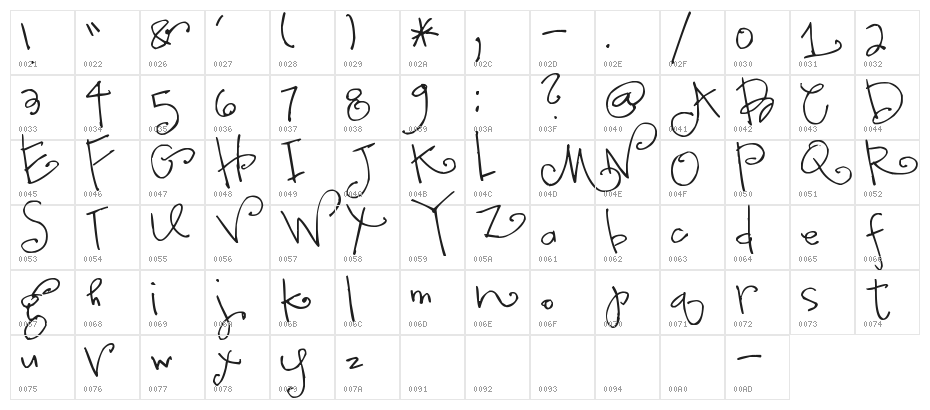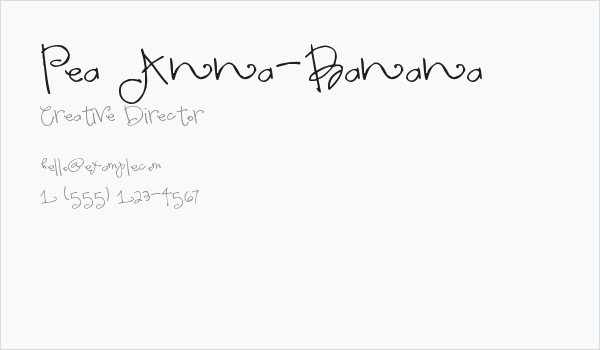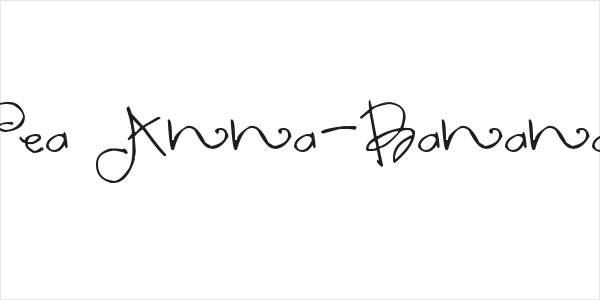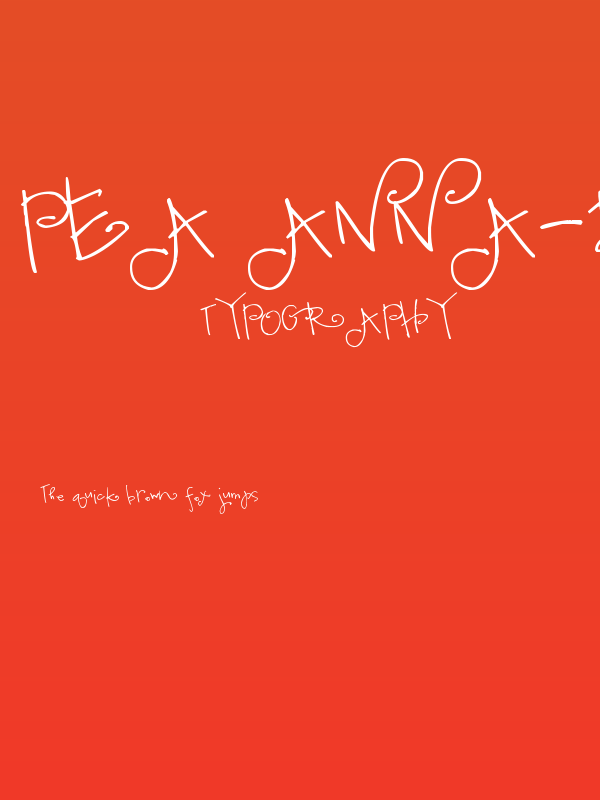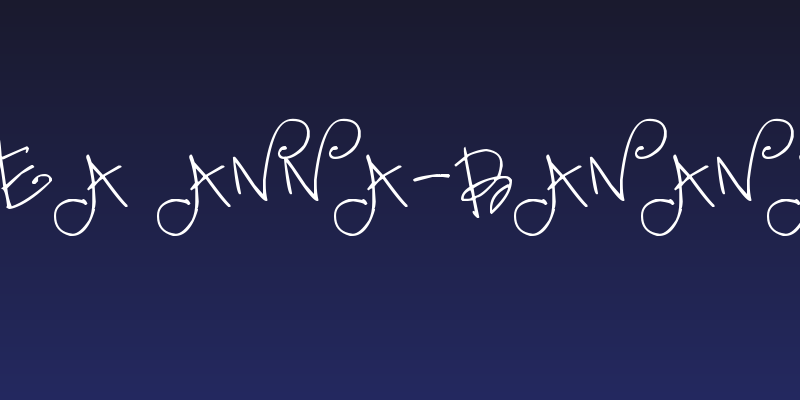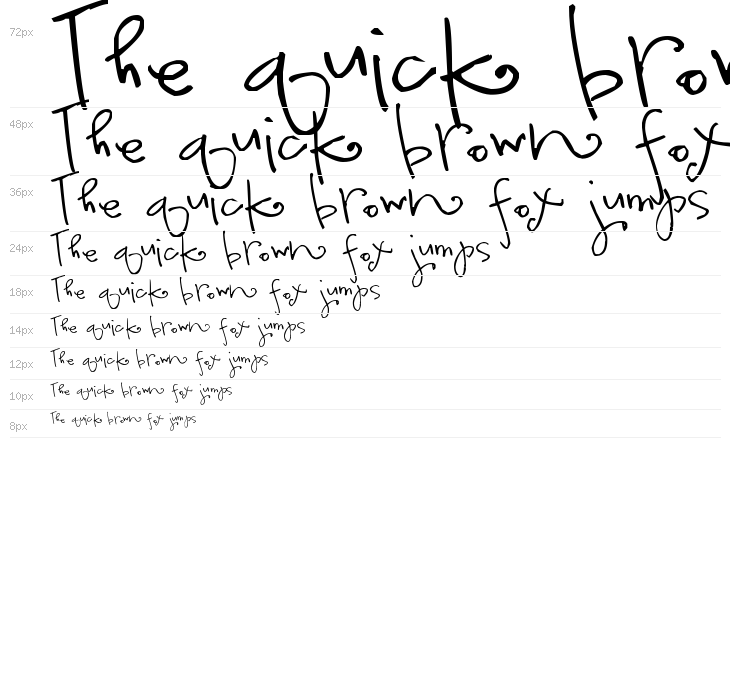
Pea Anna-Banana Font
Pea Anna-Banana Description
This playful and whimsical font features a handwritten style with a lively and energetic flair. The characters are characterized by their curly and looping strokes, giving them a sense of movement and personality. The uppercase letters are bold and expressive, while the lowercase letters maintain a consistent flow with a slightly more relaxed appearance. The numbers and special characters follow the same playful theme, making them suitable for creative and informal designs. The overall appearance is casual yet artistic, perfect for projects that require a touch of fun and creativity.
| Proposed Projects | Ideal for greeting cards, children's book covers, playful branding, and creative invitations. |